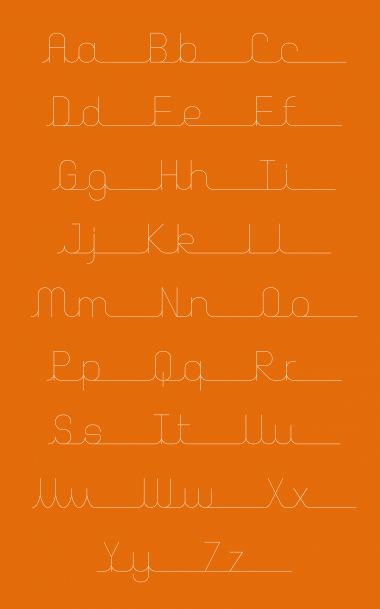
Great script, quite stylish, and eminently usable. 10+fav
Very nice. Does the space need to be so wide?
thanks. i've made the spacing less wide.
Cool font! What do you think about these connections?
@elmoyenique thanks for the suggestions. i like the 'W' as it makes the letter more distinct from say a 'V' or a 'U'. I thought the line on the 'U' would be better placed on a lowercase 'u' so those are the changes i have made.